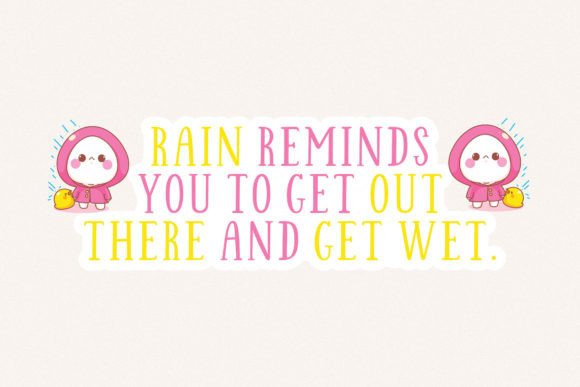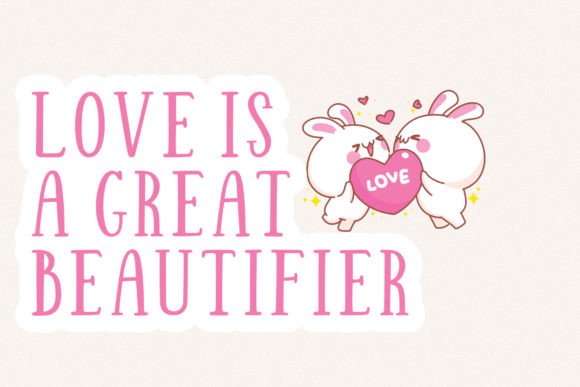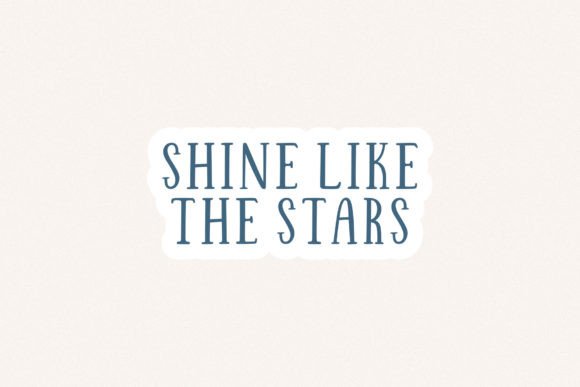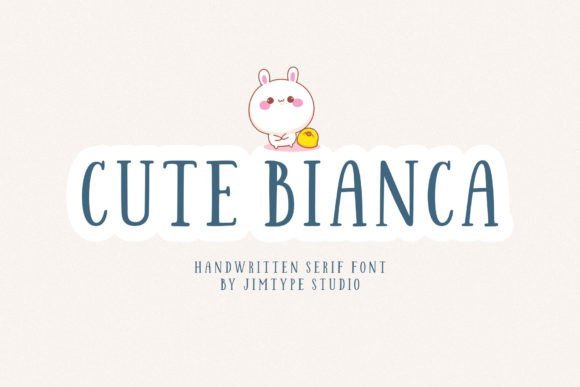
Introduction to Cute Bianca Font
Meet Cute Bianca, a delightful serif handwritten typeface that adds a touch of charm to your creative endeavors.
Tailored for branding, quotes, logos, stationery design, T-shirts, and beyond Cute Bianca is your go-to solution for projects that demand a blend of cuteness and sophistication.
Key Features of Cute Bianca Font
Why Choose Cute Bianca Font?
Cute Bianca Font offers exceptional quality and versatility, making it a valuable addition to your design toolkit. Whether you’re creating for personal projects or commercial use, Cute Bianca Font delivers professional results.